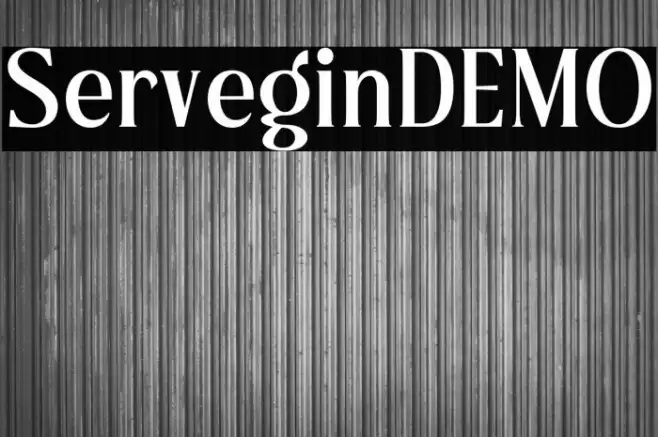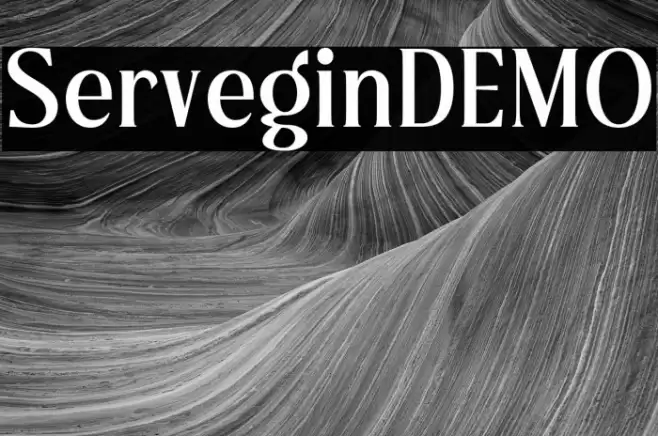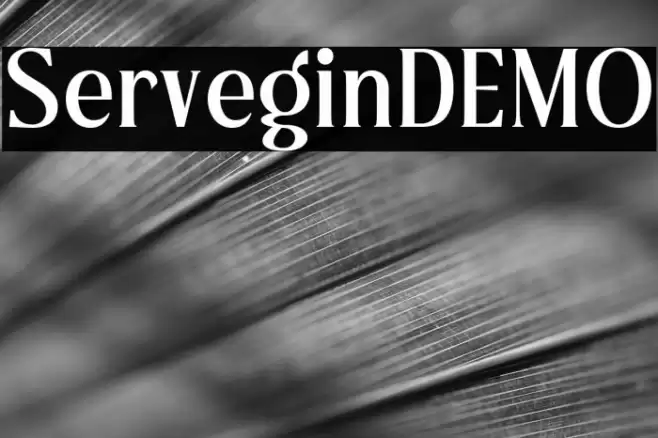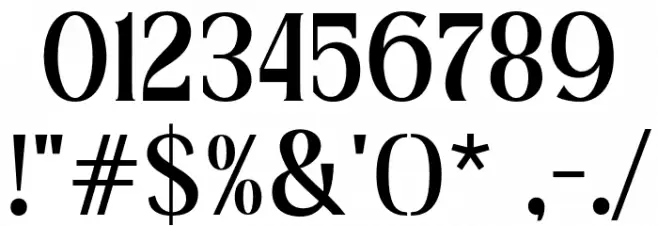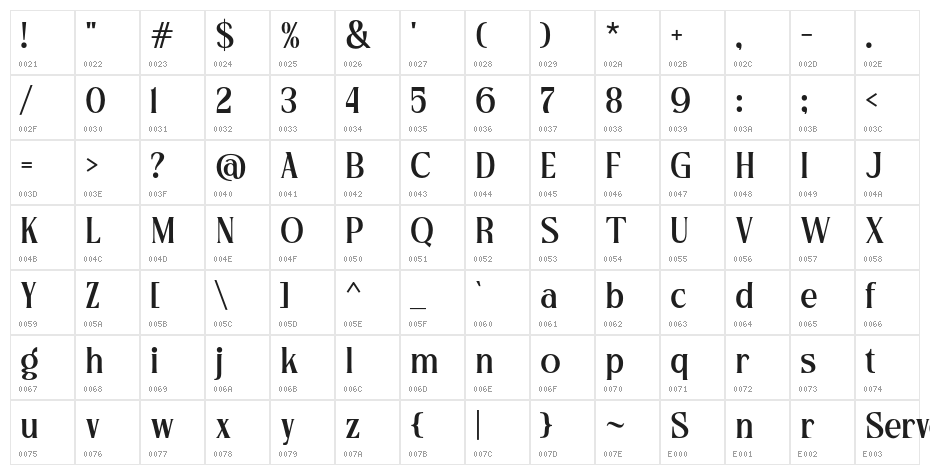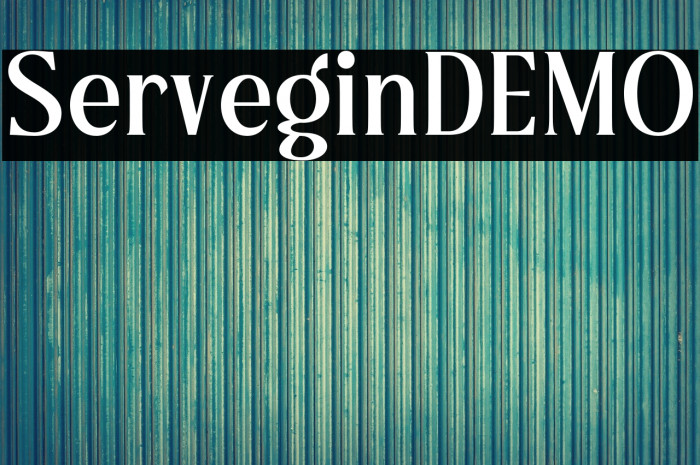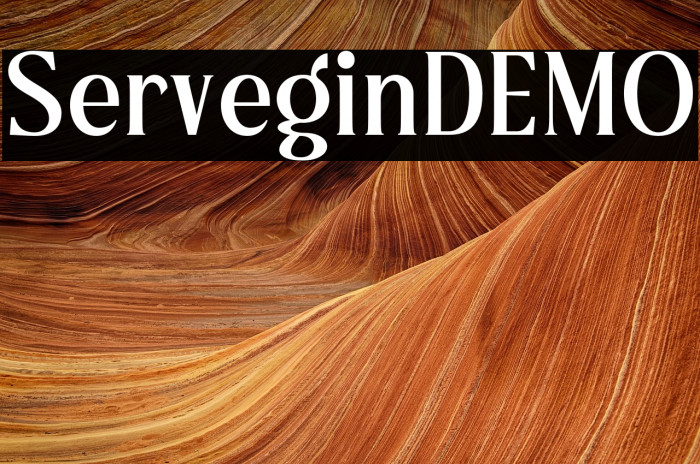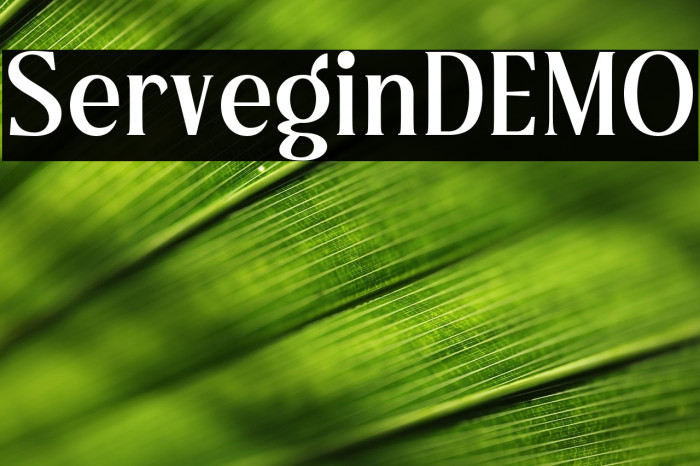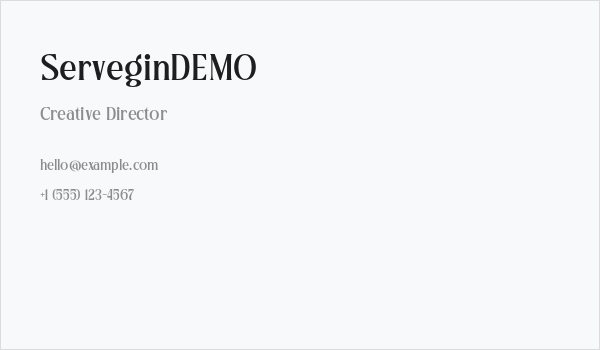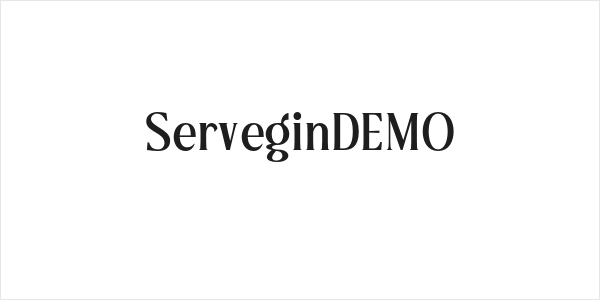
ServeginDEMO Font
This font exhibits a classic serif style with a modern twist, characterized by its elegant and refined letterforms. The uppercase letters are bold and commanding, while the lowercase letters maintain a harmonious balance with slightly rounded edges. The numerals are clear and distinct, ensuring readability. Special characters are well-integrated, adding versatility to the font. The overall design is sophisticated, making it suitable for formal and professional applications. Its high contrast in stroke thickness enhances legibility and adds a touch of elegance to the text.
A classic serif font with modern elegance and high contrast from Regular fonts.
- Proposed Projects: Ideal for editorial design, book covers, formal invitations, and branding projects that require a touch of sophistication.
- Overall Style: Classic